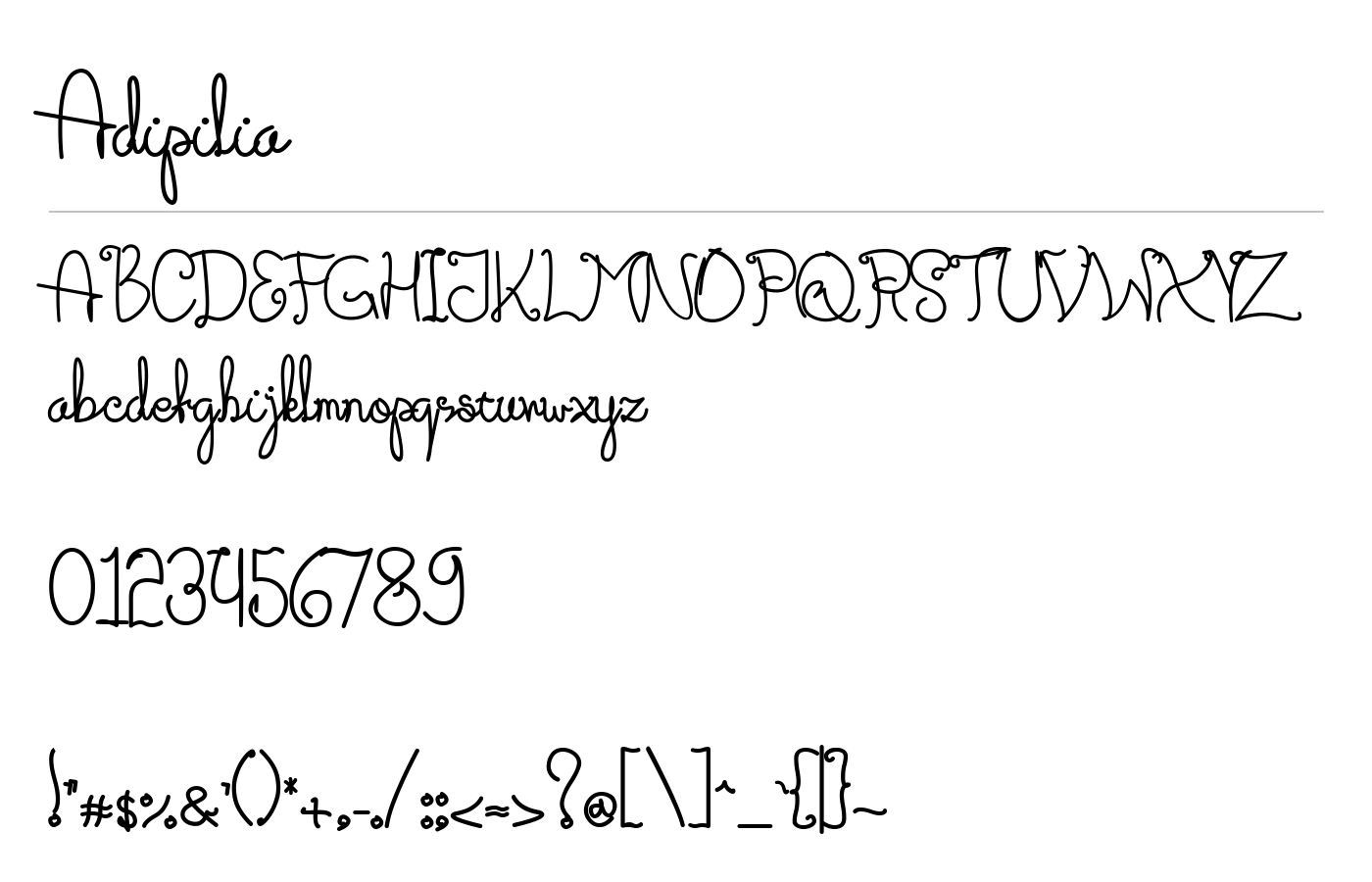
Adipilia is a playful, hand-drawn script font characterized by its tall, slender letterforms and whimsical loops, creating a light and airy feel. Its irregular strokes and quirky details give it a casual, friendly personality, making it well-suited for creative designs, informal branding, and artistic projects where a unique, hand-crafted touch is desired.
Adipilia Font
About Adipilia Font
| Font family | Adipilia Font |
| Designer | jadatype 2019 |